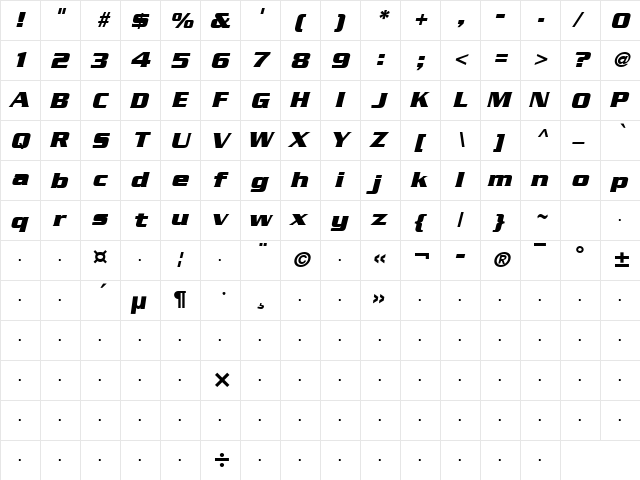
Enterprise Bold Italic
Design Context for Enterprise Typeface
Enterprise takes a measured approach to typography — its balanced proportions and neutral character make it a reliable workhorse for both digital and print work. Its italic angle brings a sense of urgency and motion to the letterforms. Its bold stroke weight gives it real presence on the page.
Pro Tip: Try Enterprise for annotation and caption copy alongside an upright companion — the contrast in angle creates a dynamic but ordered typographic system.